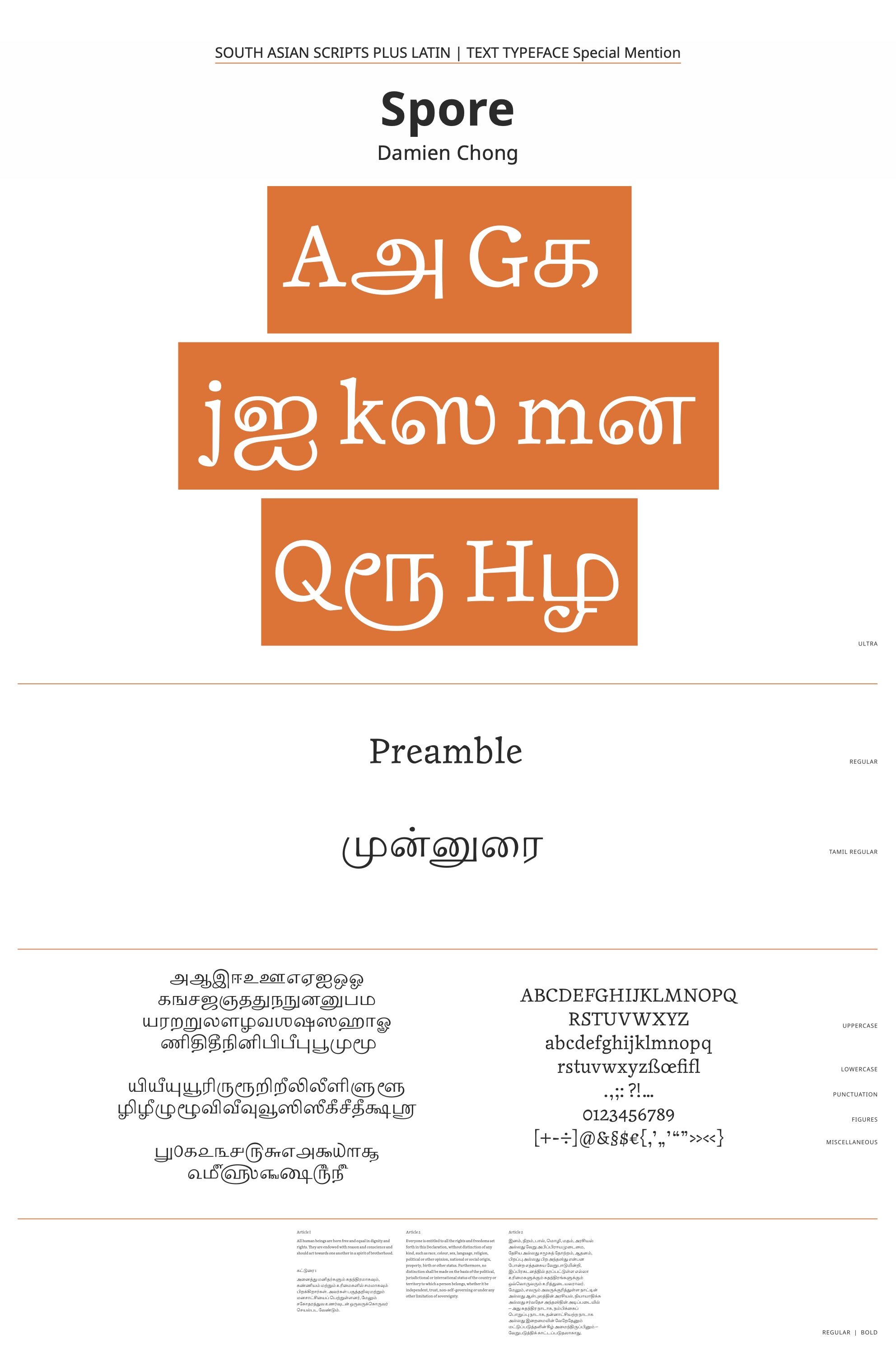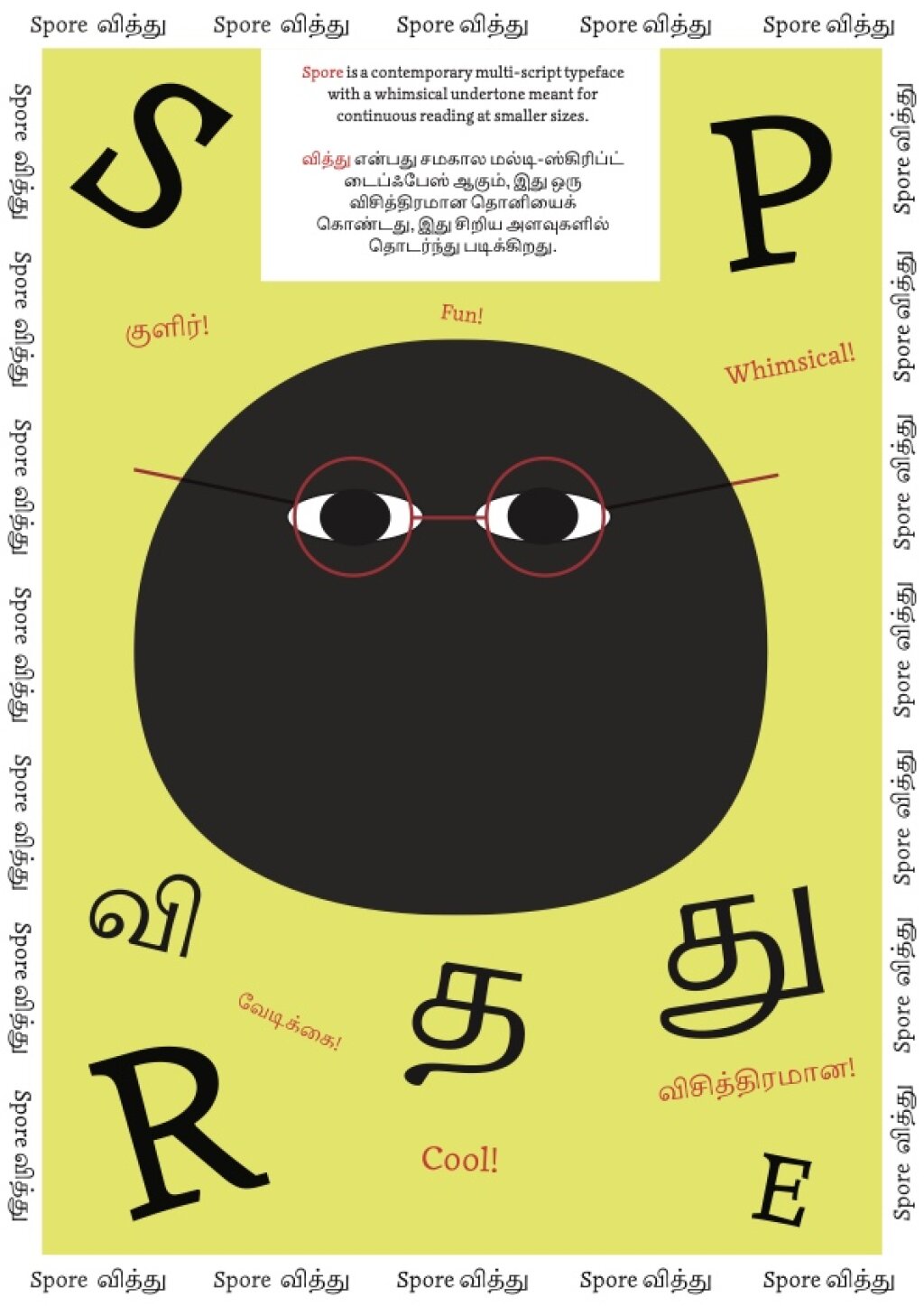
Spore
by Damien Hou Yin Chong
South Asian Scripts
B1 Text Typefaces with a latin complement
The panel felt this entry deserved a special mention for a number of reasons: the intercultural approach and the attempt to bring a local influence beyond a mainstream approach was noted; the consistent ‘imperfection’ makes for a charming typeface. We also appreciated the thought that has gone behind devising a novel way of looking at stroke modulation. There are some aspects of design execution that need addressing but we felt this approach had promise and should be celebrated.
This is a contemporary typeface that functions as both a display face at larger sizes, and a book face with a whimsical undertone at smaller sizes. The typeface is born from a deconstructed approach to book typography that references the Oulipo and Postmodern movements. Seemingly paradoxical at times, certain letterforms look synthetic and unusual at larger sizes, with features that are seemingly appear randomly or are completely disconnected with the pen or the stroke. However, at the same time, the tapering and inflecting strokes, hark back to expressive and human calligraphic forms by masters such as Oldřich Menhart. The typeface has characteristic ink-blob like terminals, tapering/inflecting strokes, a mild angularity, optically balanced letters that sit on different baselines. These details only stand out at large sizes and disappear almost completely in smaller sizes.